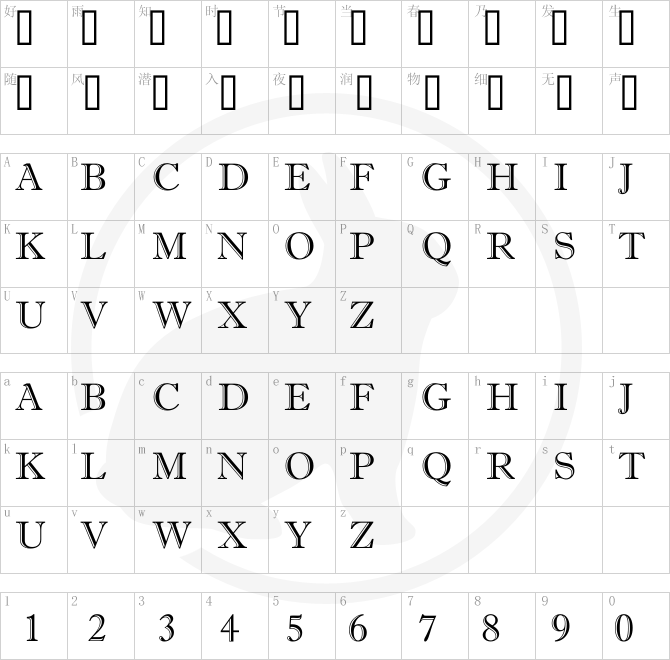
- Font Name:a_AntiqueTitulGr
a_AntiqueTitulGr.ttf is a very beautiful artistic font, a_AntiqueTitulGr.ttf is widely used in the design and printing of various books and pictures,a_AntiqueTitulGr.ttf has a strong visual impact,a_AntiqueTitulGr.ttf is a commonly used font in newspapers, magazines and books, and is used in posters, e-commerce Poster design, store design, logo design, font design and other fields.a_AntiqueTitulGr.